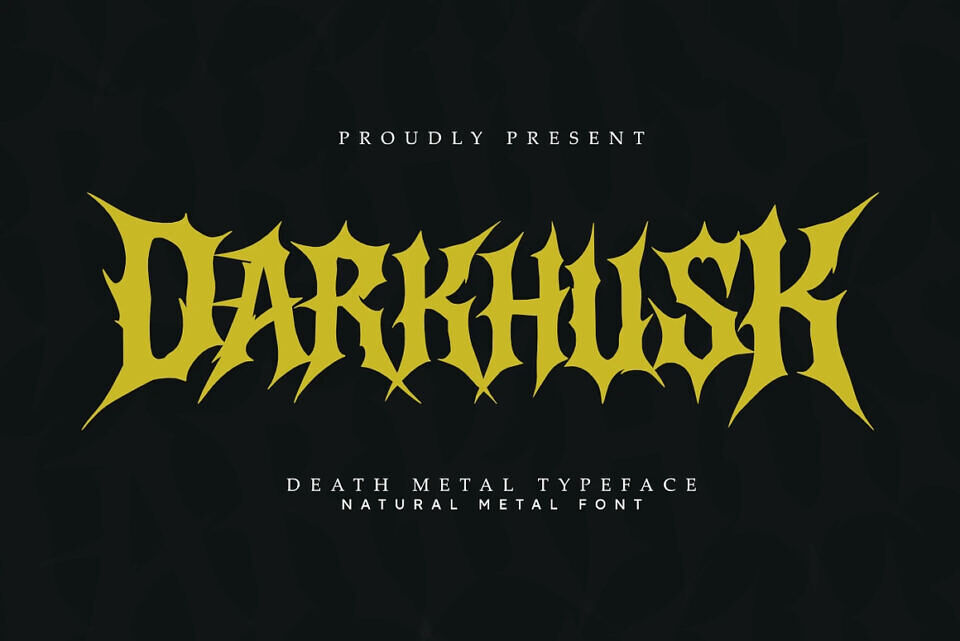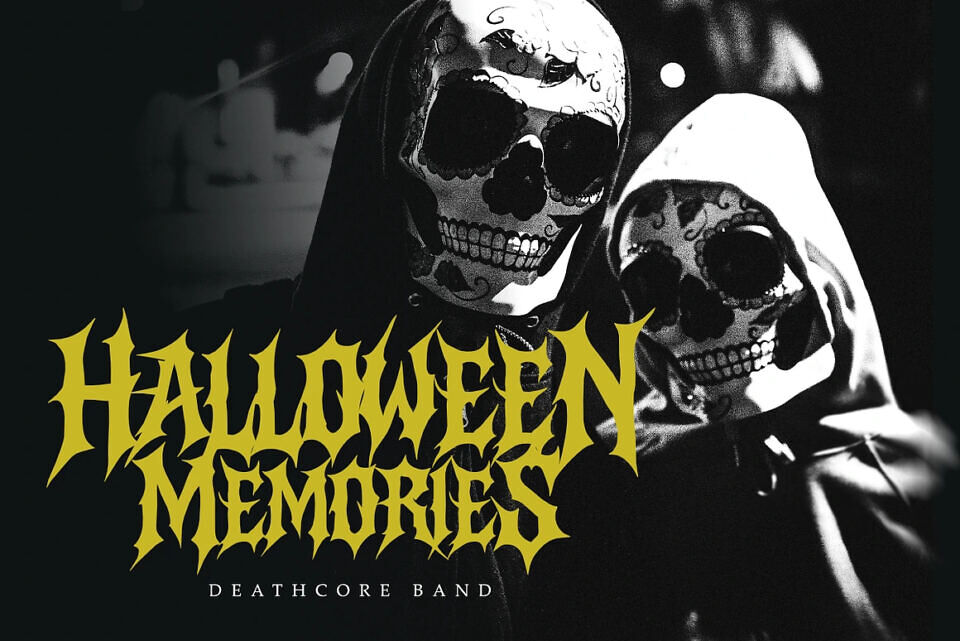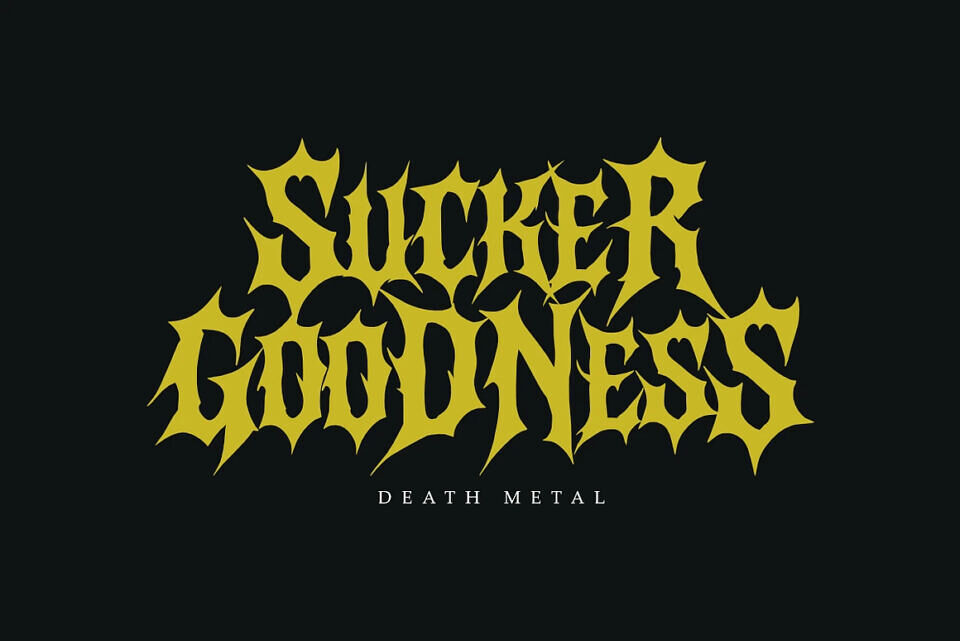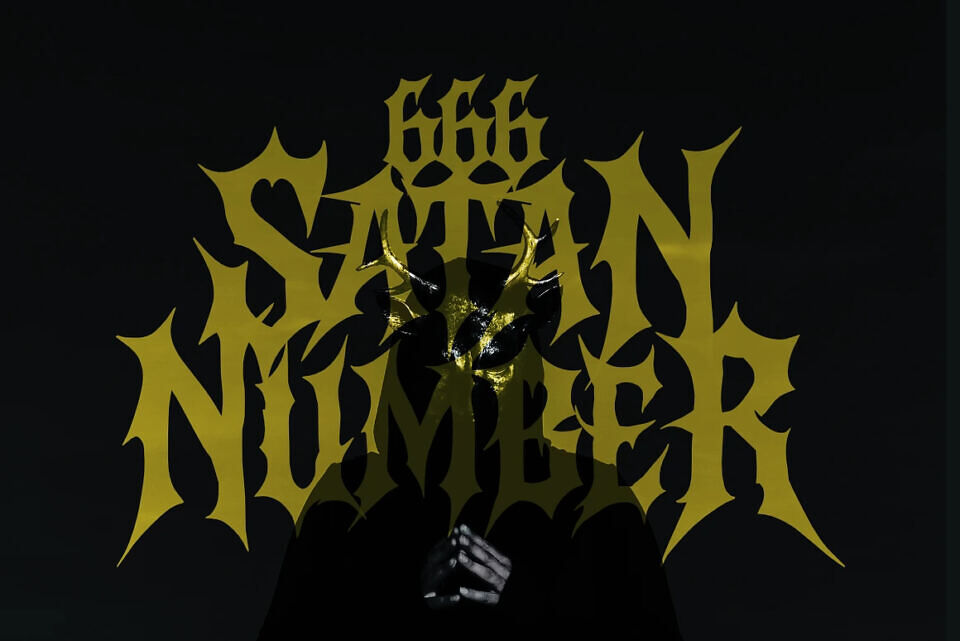
Darkhusk Font
Darkhusk is a raw, organic death metal display font designed for extreme and dark-themed projects. Featuring chaotic, hand-drawn letterforms with razor-sharp spikes and jagged edges, it captures the intensity and aggression of underground metal.
Darkhusk is perfect for band logos, album covers, merchandise, horror posters, and festival visuals, Darkhusk delivers gritty authenticity and brutal energy. Its detailed, chaotic design ensures your projects stand out with unapologetic impact, making it the ideal typeface for designers seeking to convey raw power, darkness, and metal-inspired aesthetics.